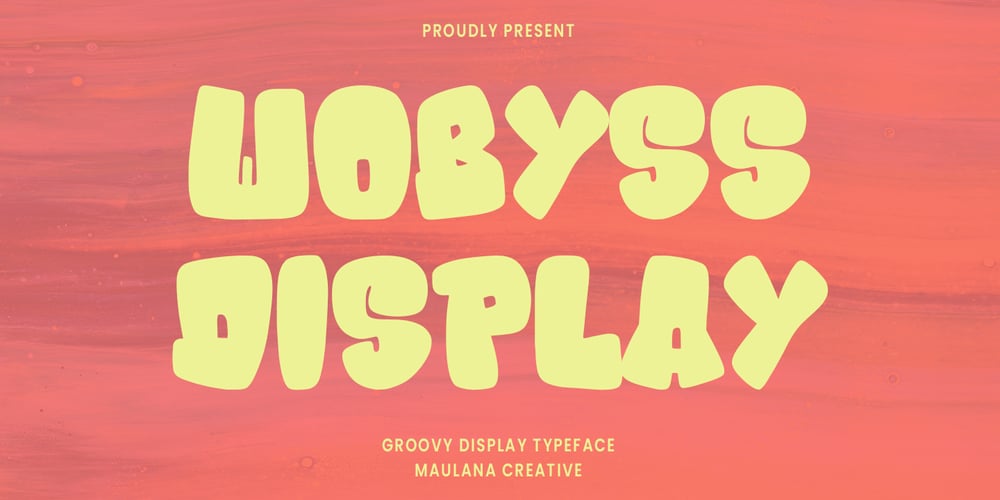
Wobyss Font Family was designed by Gilang Maulana and published by Maulana Creative. Wobyss contains 1 styles and family package options. Wobyss Groovy Display Typeface. Heavy stroke, fun character with a bit of ligatures. To give you an extra creative work. Wobyss groovy display typeface support multilingual more than 100+ language. This font is good for logo design, Social media, Movie Titles, Books Titles, a short text even a long text letter and good for your secondary text font with script or serif. Make a stunning work with Wobyss groovy display typeface.